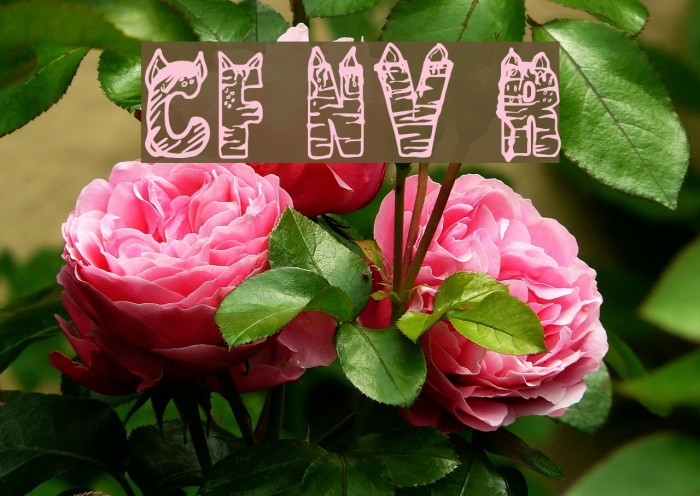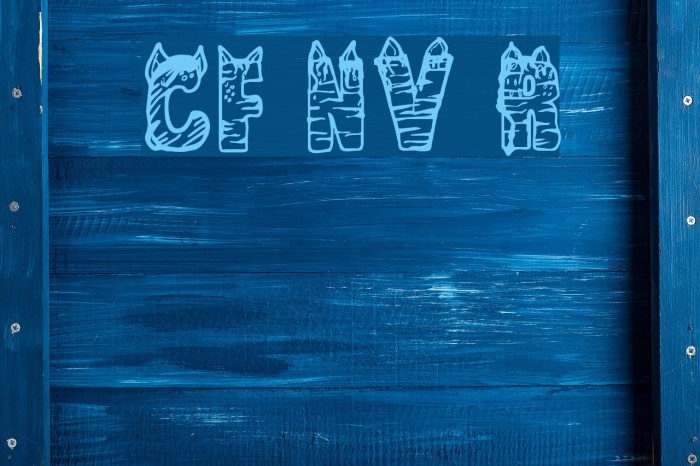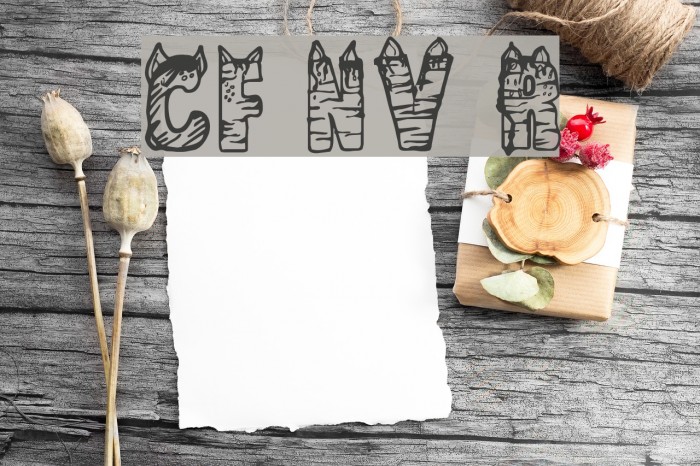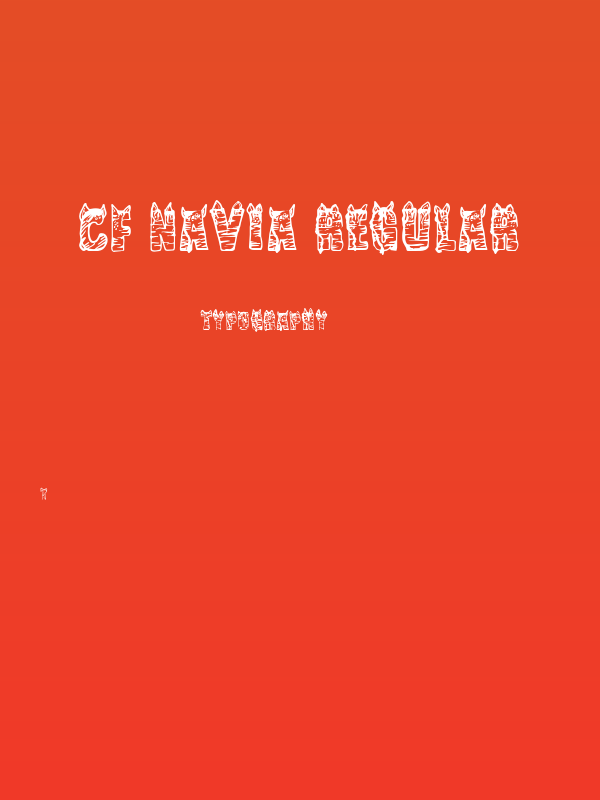
CF NaVia Regular Font
CF NaVia Regular Description
This font features a playful and whimsical design, with each letter resembling a cartoonish creature or character. The strokes are bold and uneven, giving a hand-drawn appearance. The letters are filled with intricate patterns and textures, enhancing the decorative aspect. This font is highly detailed, making it ideal for creative projects that require a unique and eye-catching typeface. The overall style is fun and imaginative, perfect for children's books, posters, or any project that benefits from a lively and animated look.
Proposed ProjectsIdeal for children's books, playful posters, creative invitations, and themed event materials.